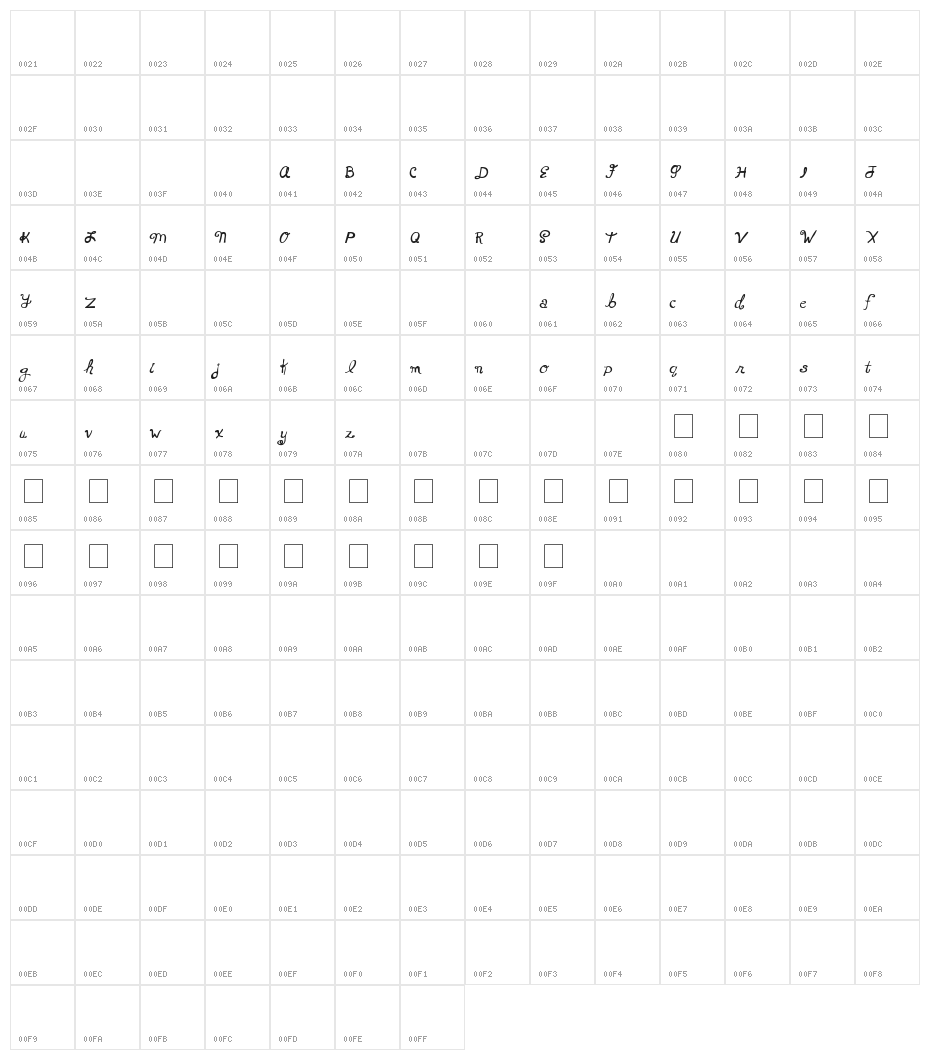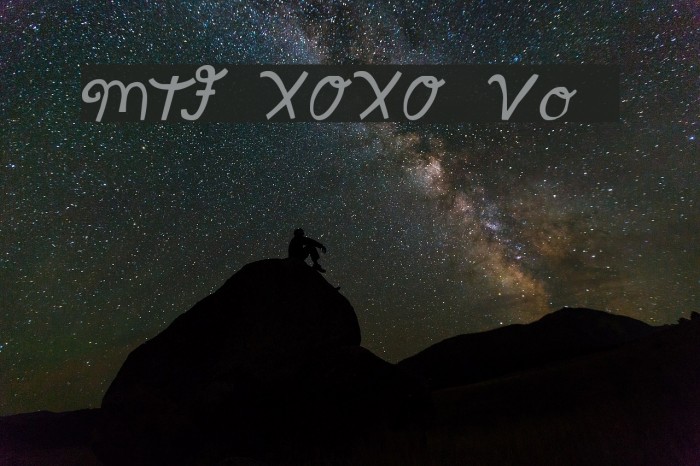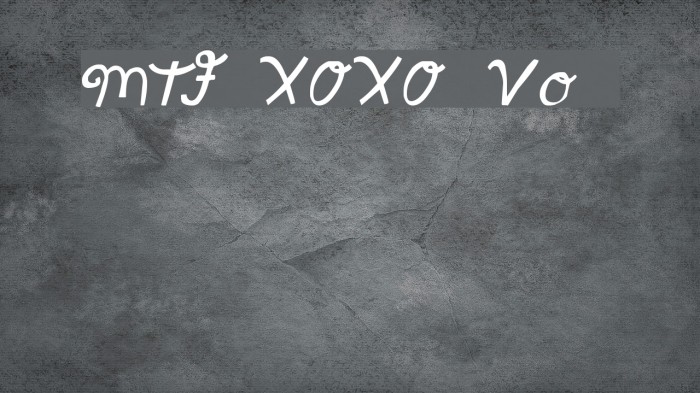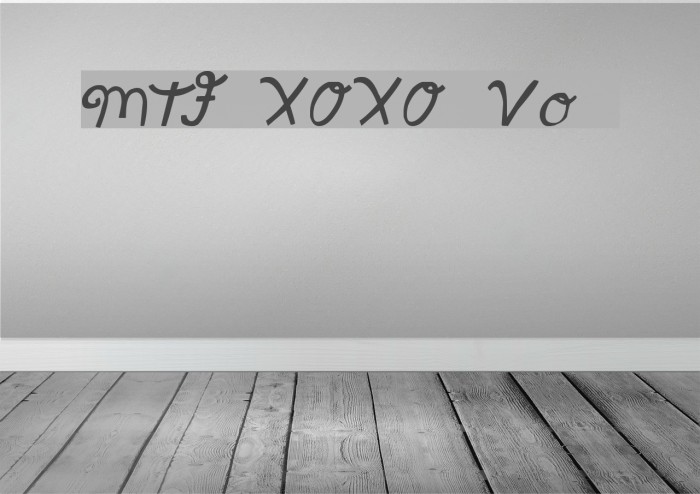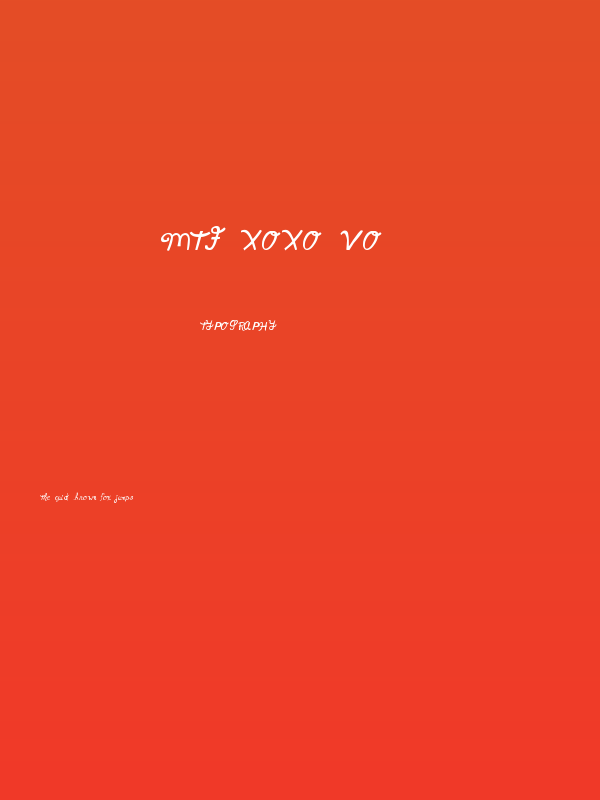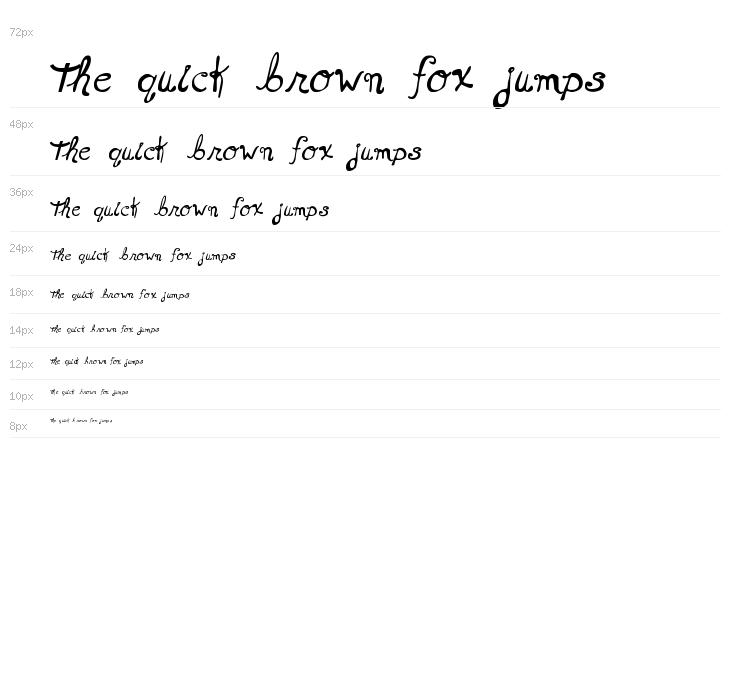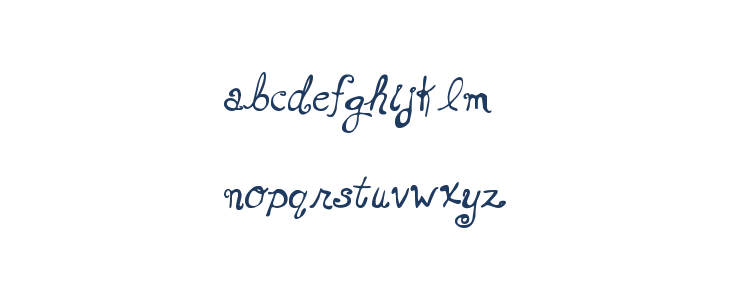
MTF XOXO Vo.1 Font
MTF XOXO Vo.1 Description
This font features a playful and whimsical style, characterized by its curly and flowing letterforms. The uppercase letters exhibit a unique blend of curves and loops, giving them a lively and dynamic appearance. The lowercase letters maintain this playful aesthetic, with some characters featuring exaggerated tails and flourishes. The overall design is reminiscent of handwriting, with a touch of elegance and charm. The font's distinctive style makes it suitable for creative and informal projects, where a sense of fun and personality is desired.
| Proposed Projects | Ideal for greeting cards, invitations, children's books, and playful branding. |